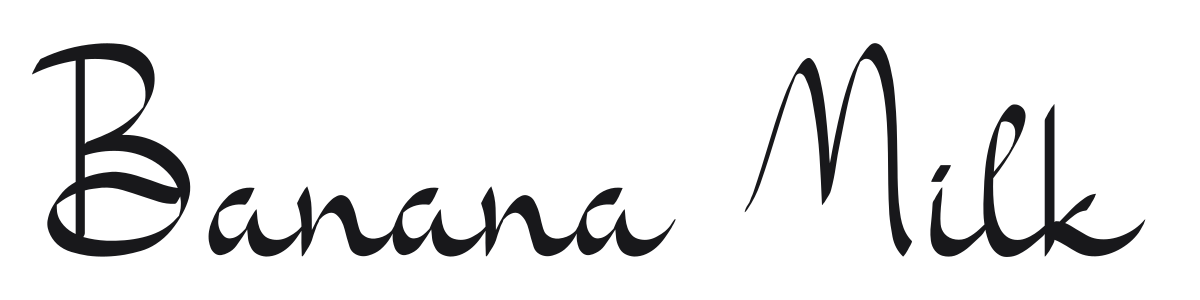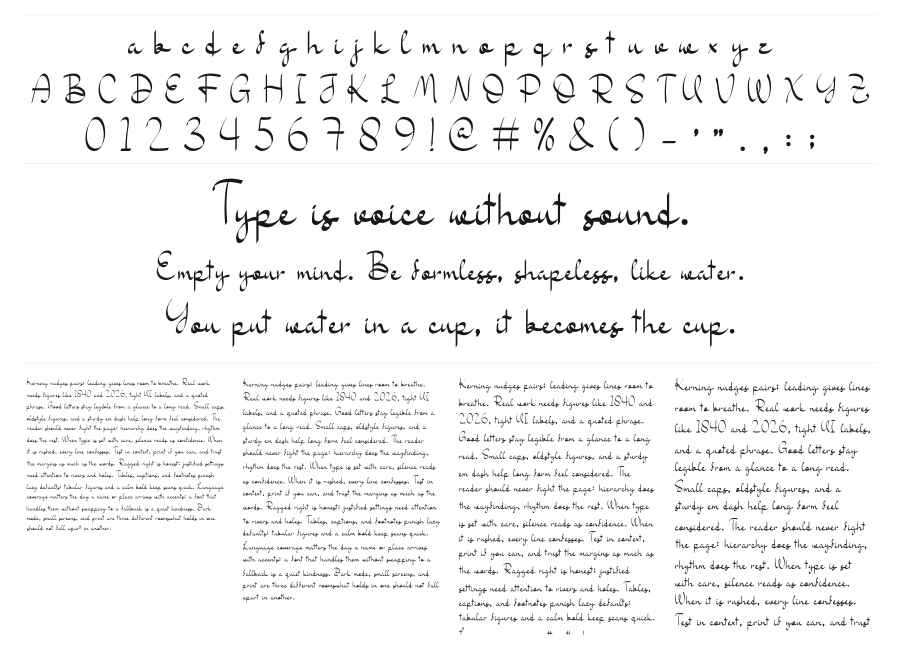
Banana Milk
Banana Milk is a casual connected script with a loose, hand-drawn rhythm and lively stroke variation. Letters flow naturally from one to the next with expressive terminals and a gently bouncing baseline that feels written in a single sitting. It brings an approachable, handcrafted warmth to packaging, branding, and editorial headlines.